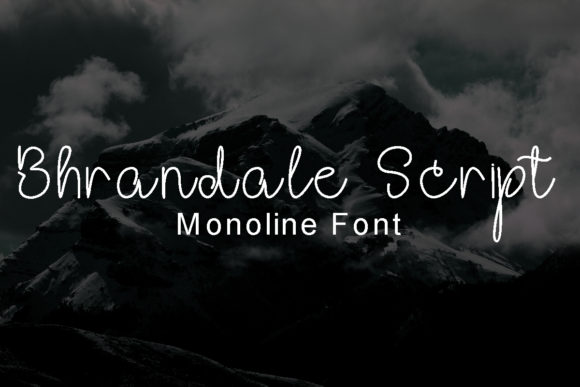
The Bhrandale Script Font: A Bold Twist on Handwritten Elegance
I’ll never forget the design project that led me to discover the Bhrandale Script Font. I was working on a branding campaign for a boutique craft business, and I needed a font that would convey a sense of personality and whimsy. As I scrolled through font after font, nothing seemed quite right – until I stumbled upon Bhrandale. Its unique blend of boldness and elegance instantly captured the essence of the brand, and I knew I’d found the perfect fit.
So, what makes Bhrandale so special? Let’s dive into the good stuff:
• Unique and eye-catching: Bhrandale’s bold twist on traditional handwritten fonts makes it a standout in any design project.
• Highly versatile: Whether you’re designing a logo, creating a social media graphic, or crafting a brand identity, Bhrandale adapts effortlessly.
• Easy to read: Despite its bold personality, Bhrandale remains surprisingly legible, even at smaller font sizes.
Of course, no font is perfect, and Bhrandale does come with a few minor quirks:
• 🤔 Limited use of uppercase letters: While Bhrandale’s uppercase letters are stunning, they can be a bit overpowering in certain contexts. Use them sparingly for maximum impact.
• ⚠️ Glyph limitations: Some users have reported issues with certain glyphs or special characters. However, these can often be resolved by using OpenType features or stylistic alternates.
The Story Behind Bhrandale
While the true story behind Bhrandale’s creation remains a mystery, it’s easy to imagine a designer pouring their heart and soul into this unique font. Perhaps they were inspired by the elegant handwriting of vintage advertisements or the bold statements of modern art. Whatever the inspiration, Bhrandale’s distinctive personality has captured the hearts of designers worldwide.
Is Bhrandale suitable for body text? While Bhrandale is beautiful, it’s best used for headings or titles. Its bold personality can be overwhelming for longer blocks of text.